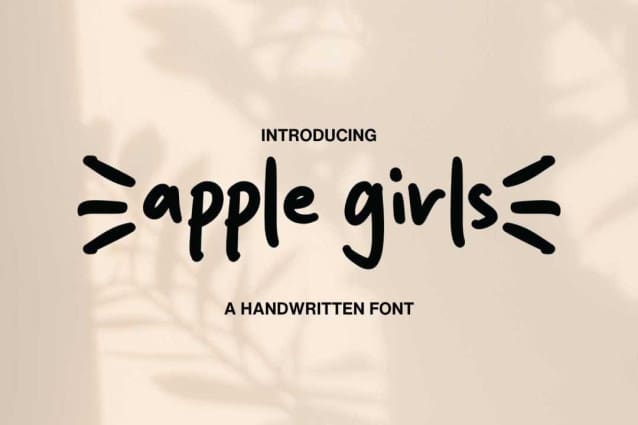
Apple Girls Font
Apple Girls Font, Suitable for any design needs : logo, branding, modern advertising design, logos, poster quote, book / cover Title, editorial design, website / blog, card, t-shirts, and any hand-lettered needs.